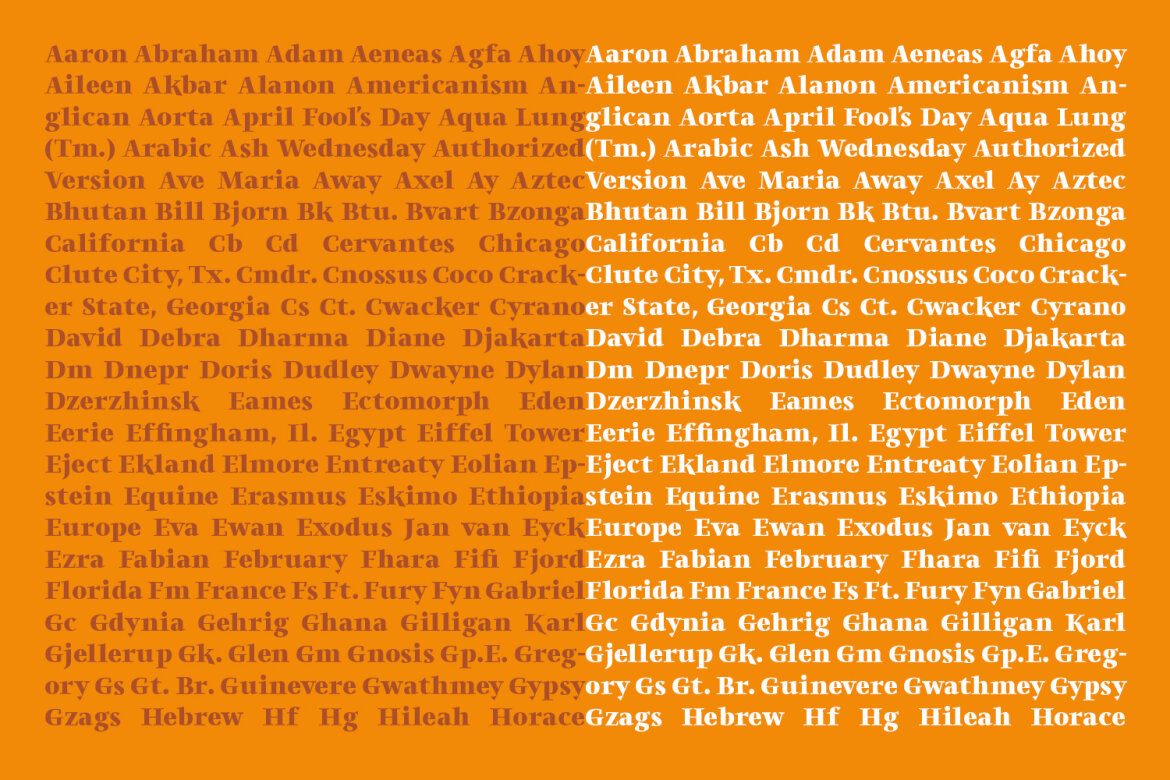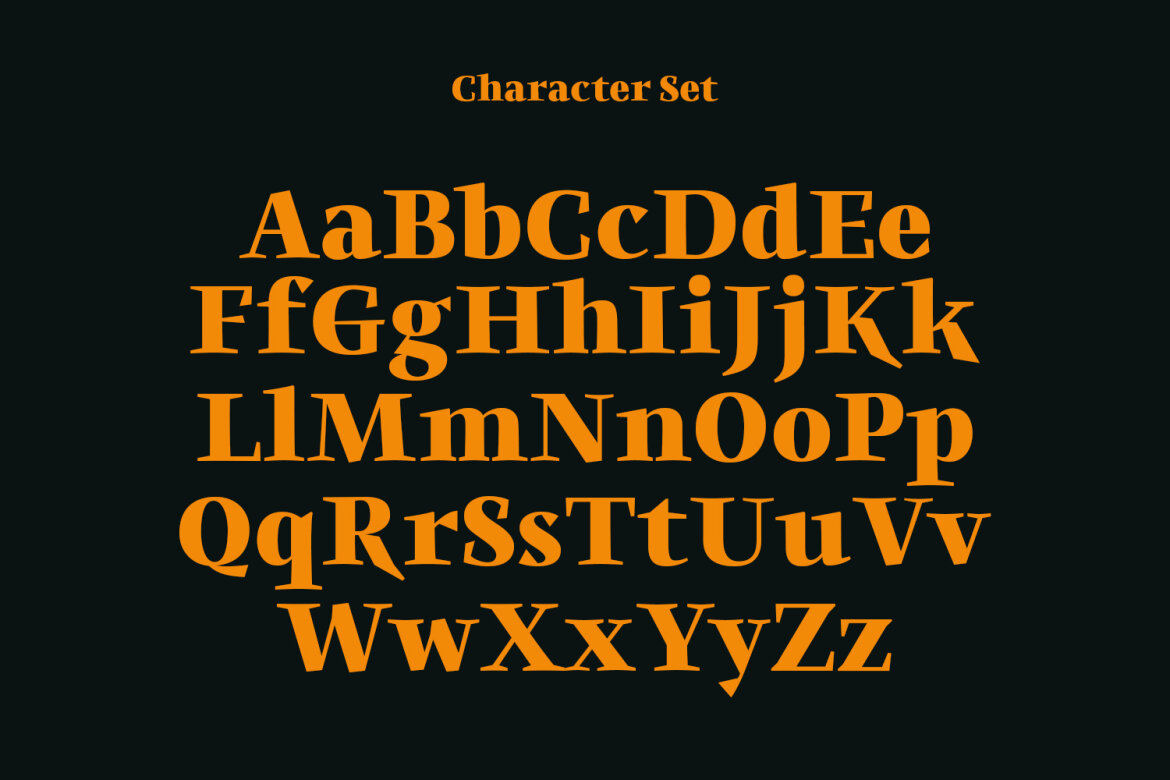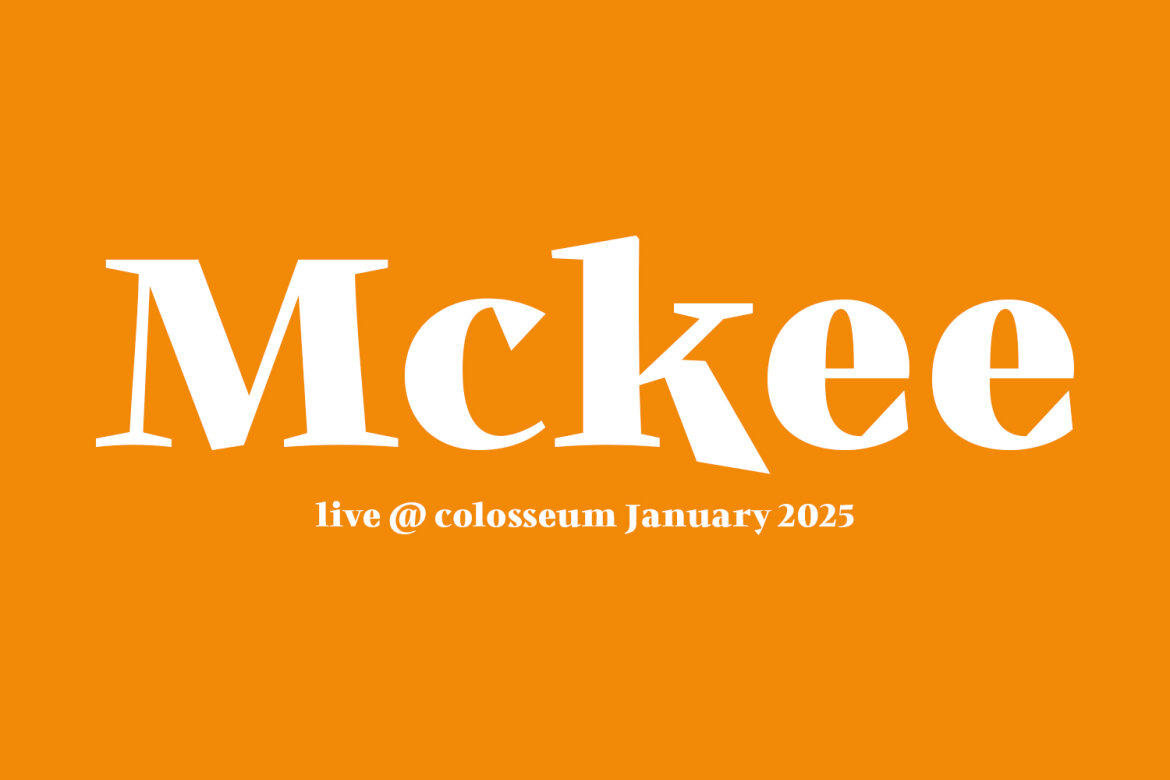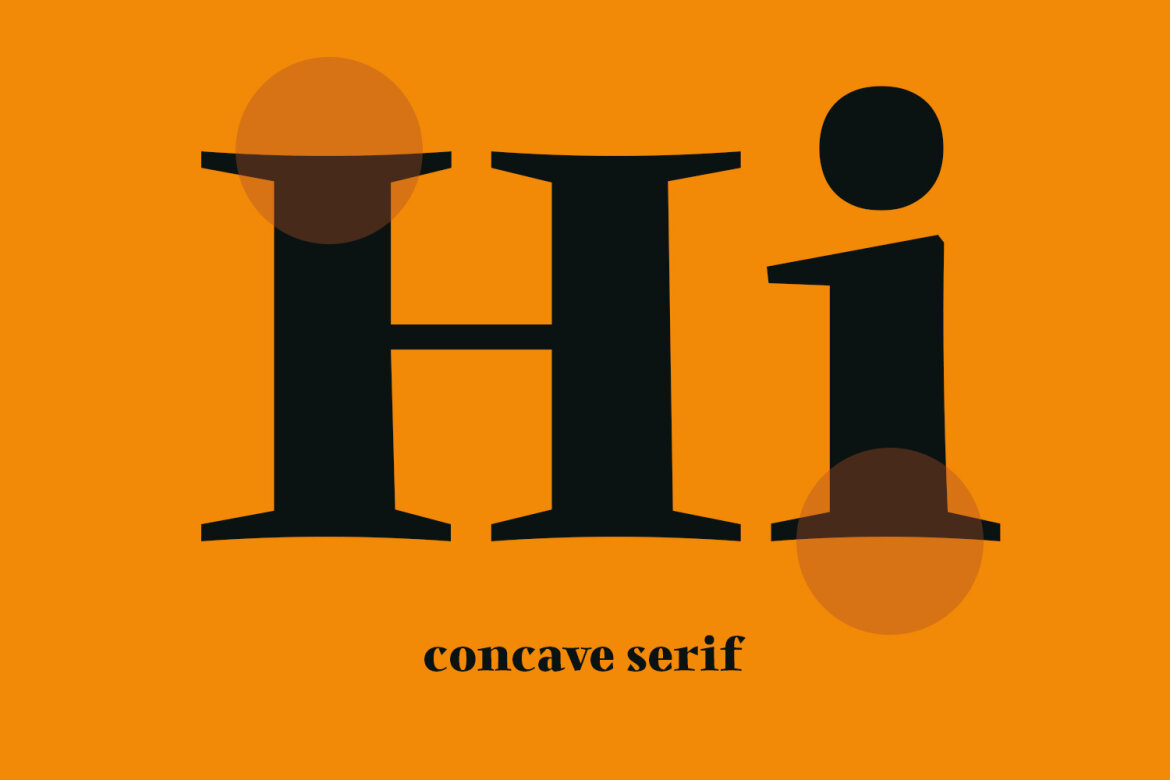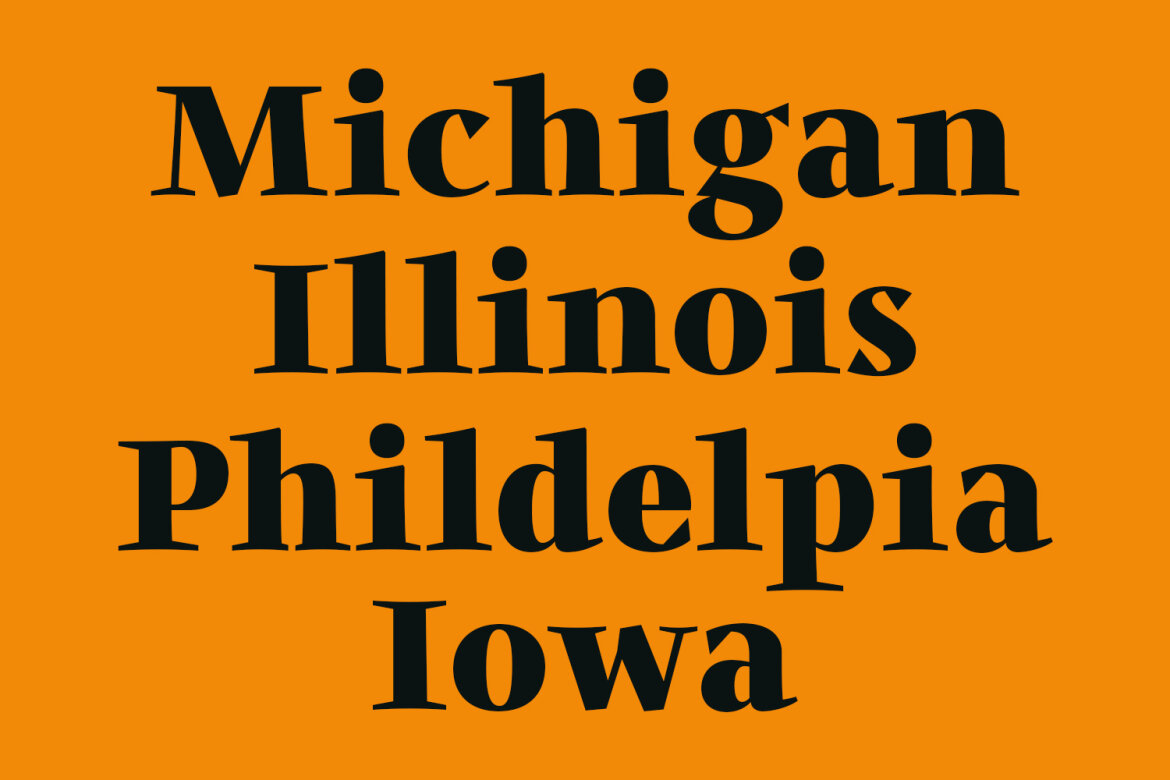
Ekrutz Display Serif FREE Font
Ekrutz
Ekrutz is a Modern Display Serif font. Bold stroke, fun character with a bit of ligatures and alternates. To give you an extra creative work. Ekrutz font support multilingual more than 100+ language. This font is good for logo design, Social media, Movie Titles, Books Titles, a short text even a long text letter and good for your secondary text font with script or serif. Make a stunning work with Ekrutz font.